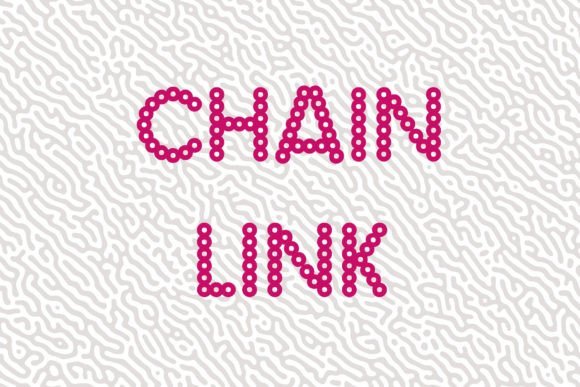
Introduction to Chain Link Font
Chain Link is a cool and fun display font.
No matter the topic, this font will be a great addition to your font library, as it has the potential to enhance any creation .
Key Features of Chain Link Font
Why Choose Chain Link Font?
Chain Link Font offers exceptional quality and versatility, making it a valuable addition to your design toolkit. Whether you’re creating for personal projects or commercial use, Chain Link Font delivers professional results.